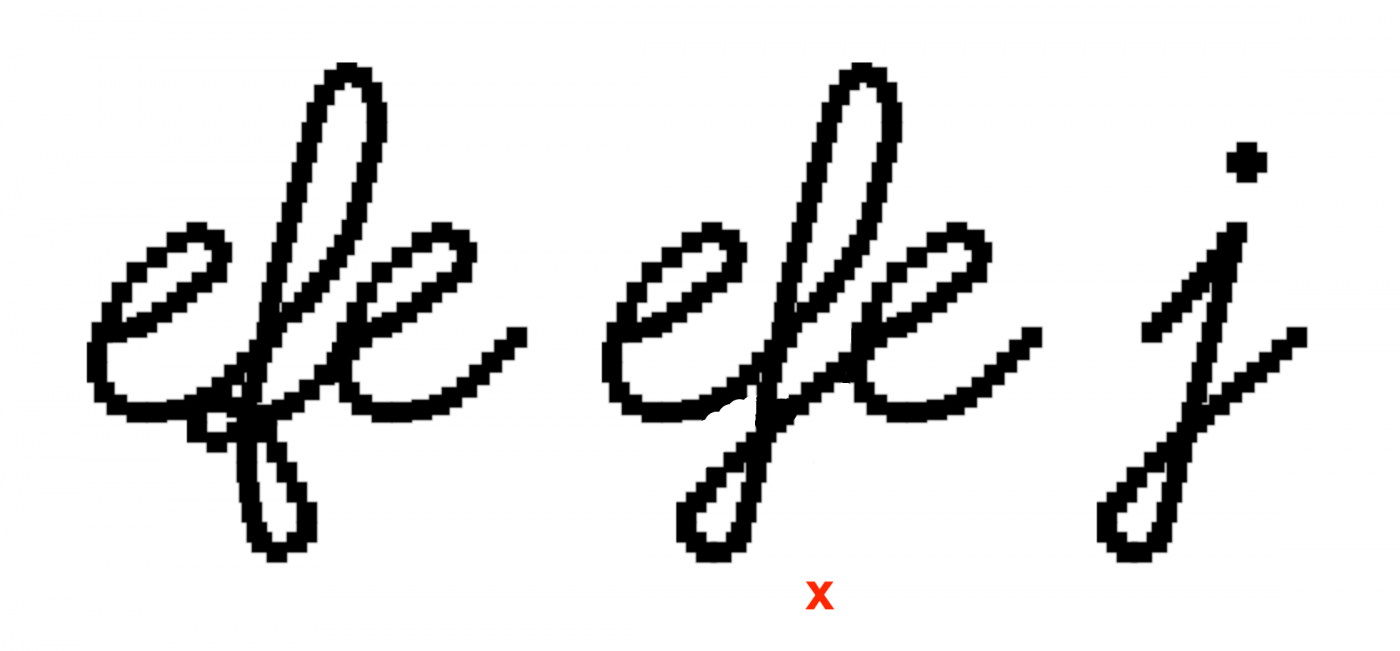
@Elmo I would think it is partially more elegant and definitely more consistent with the rest of set, but it would not feel like my own writing. Now I tried to write it like that, but it need full concentration in slow motion to break the habit.
It also might be confused with old german script Kurrent "h", so I just straightened a bit my own form and put the proposed one temporary to the long s.
@Elmo I always welcome suggestions. Due various connecting heights these connected styles can never get as fluent as real hand writing, unless there were ligatures for almost all letters combinations. This is how I leared to write in the beginning. I think there is nothing wrong with your handwrittig, its just closer to "techical script", I was thought in secondary school. It is just a bit unusual to see the way how you write g.
What would you think of an "f" using the bottom part of the "j"?
@Elmo I would think it is partially more elegant and definitely more consistent with the rest of set, but it would not feel like my own writing. Now I tried to write it like that, but it need full concentration in slow motion to break the habit.
It also might be confused with old german script Kurrent "h", so I just straightened a bit my own form and put the proposed one temporary to the long s.
Don't worry about this, I completely understand you, Peter. This was just a suggestion, thank you for considering it.
My handwriting has never been so beautiful, although some may have thought it has a certain charm, which I don't quite find.
@Elmo I always welcome suggestions. Due various connecting heights these connected styles can never get as fluent as real hand writing, unless there were ligatures for almost all letters combinations. This is how I leared to write in the beginning. I think there is nothing wrong with your handwrittig, its just closer to "techical script", I was thought in secondary school. It is just a bit unusual to see the way how you write g.